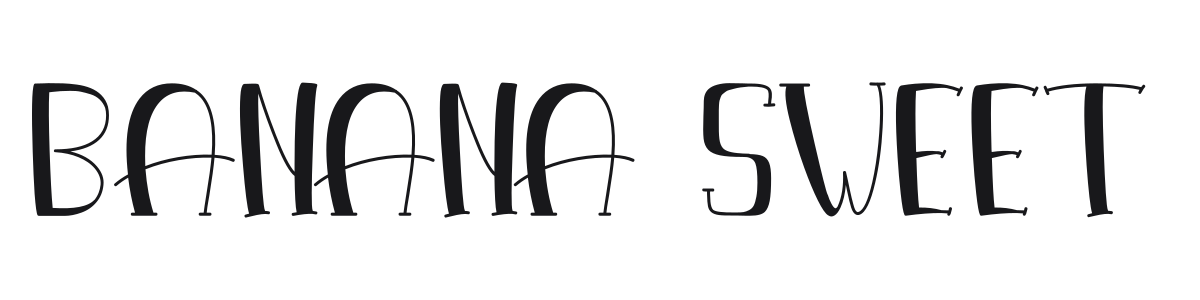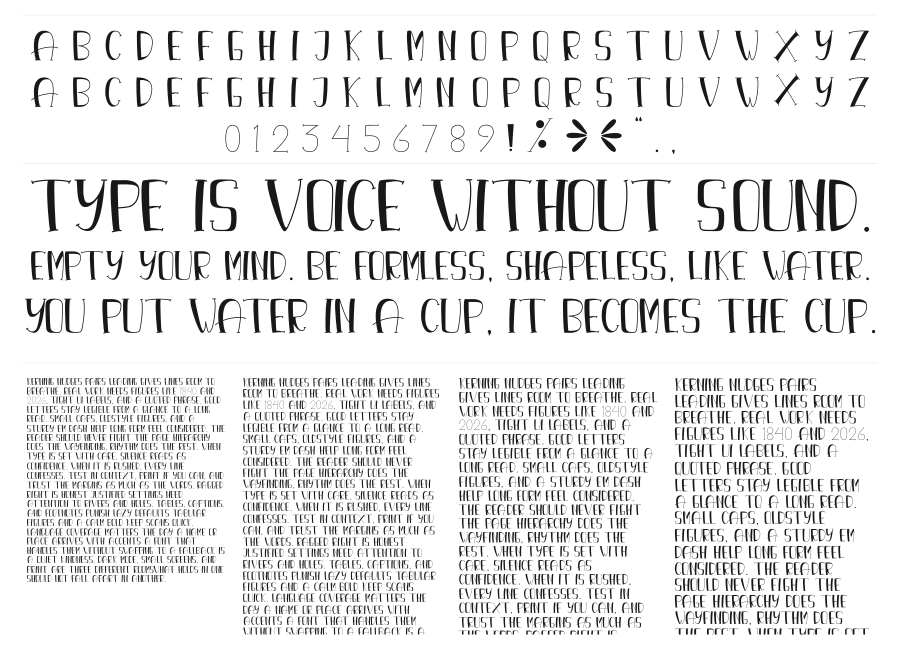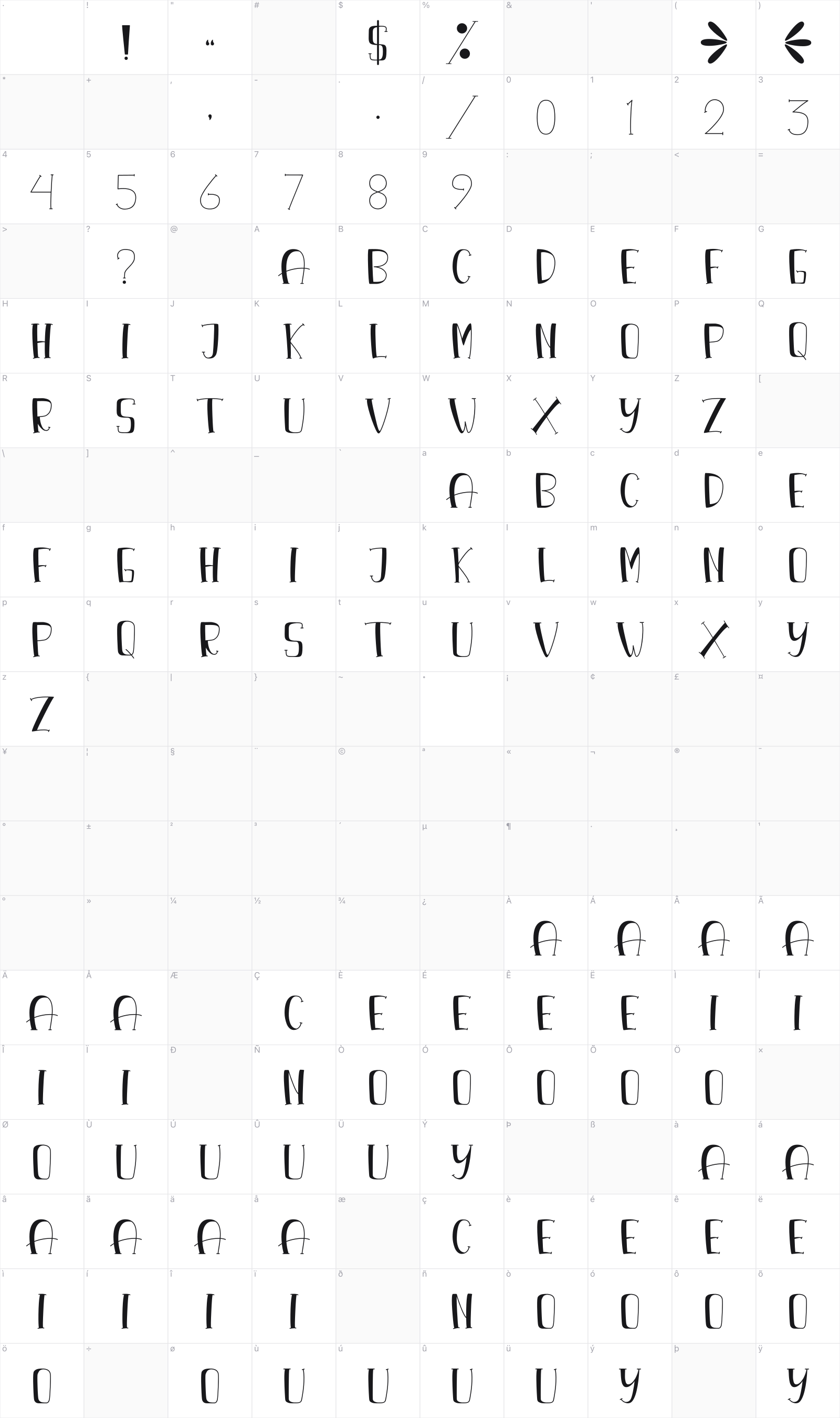
Banana Sweet
Banana Sweet is a tall, condensed serif with dramatic contrast between heavy stems and wispy hairline details. The slightly irregular, hand-lettered quality gives it a warm, artisan charm that feels vintage without being stiff. It suits branding, packaging, and poster work where a handcrafted retro personality is the point.